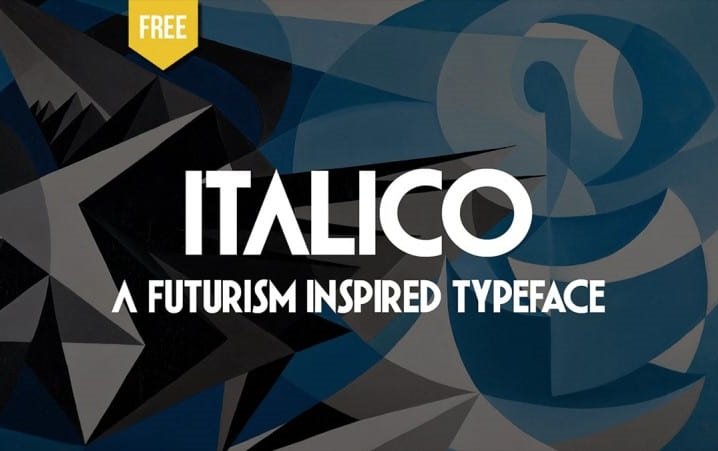
Italico Font
Italico Sans Serif Font is the modern Display sans serif font. With strong characters in the size of Black, it is very suitable for use for sign displays. and other sizes you can use as needed for your project. The typeface can be an amazing option for beautiful branding, logo / logotype design projects, marketing graphics, banners, posters, signage, corporate identities as well as for editorial design.